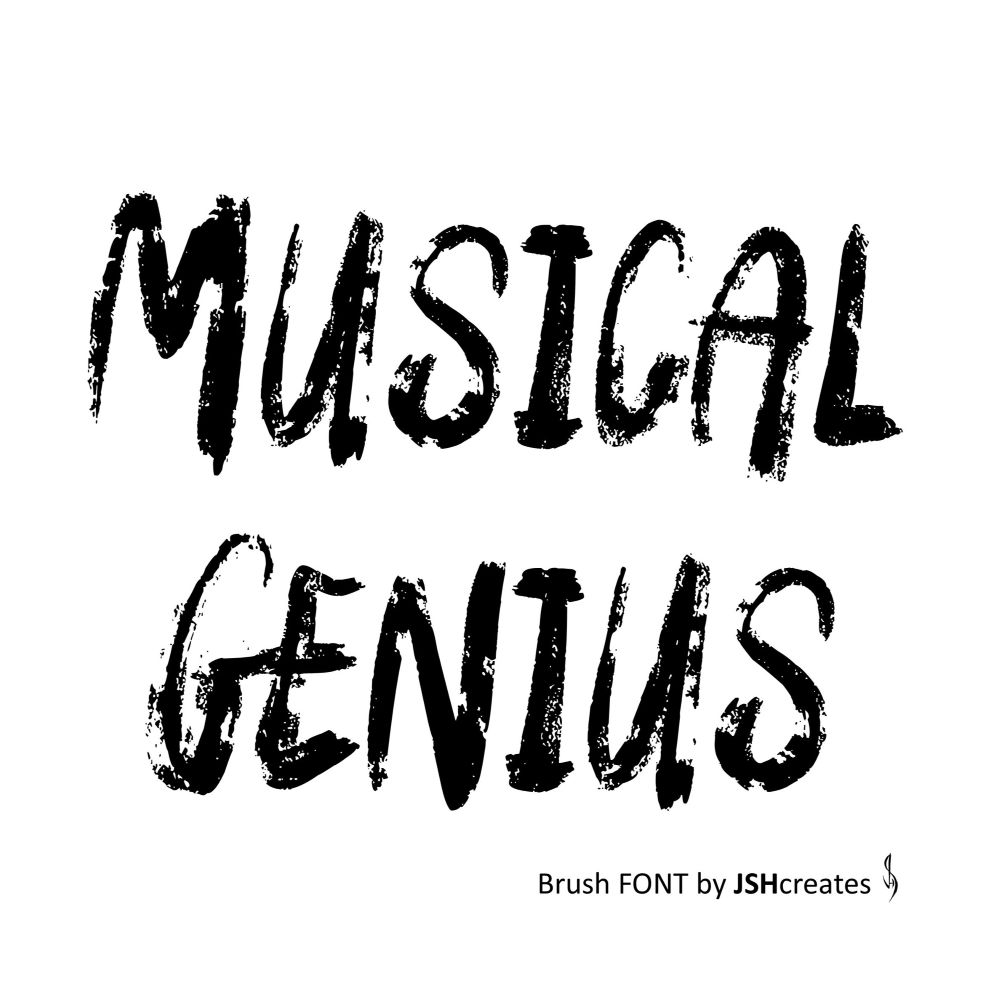
Musical Genius Font
Paint brush font. “Musical Genius”. Perfect for advertising and display purposes, including banners, book covers, shirts, posters, logos and much more!
This is an All CAPS font, including numbers and some basic characters.